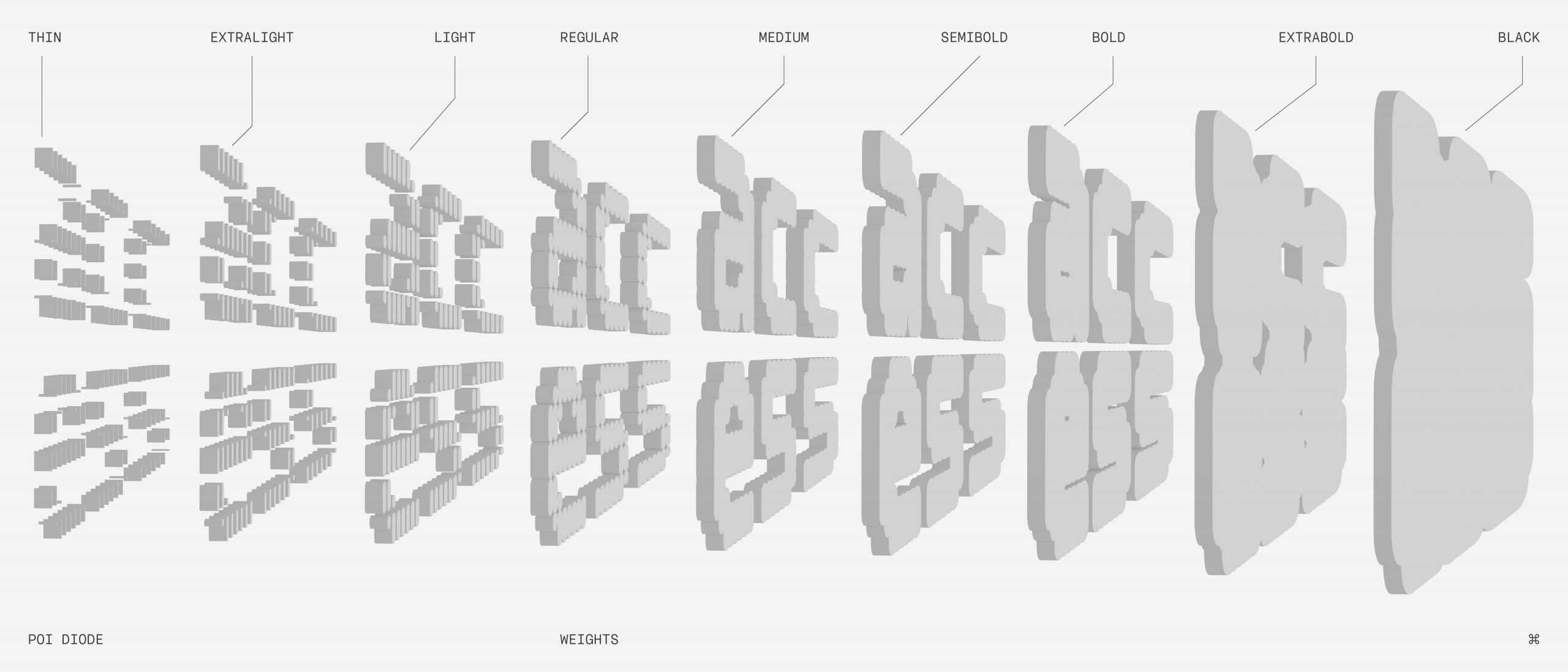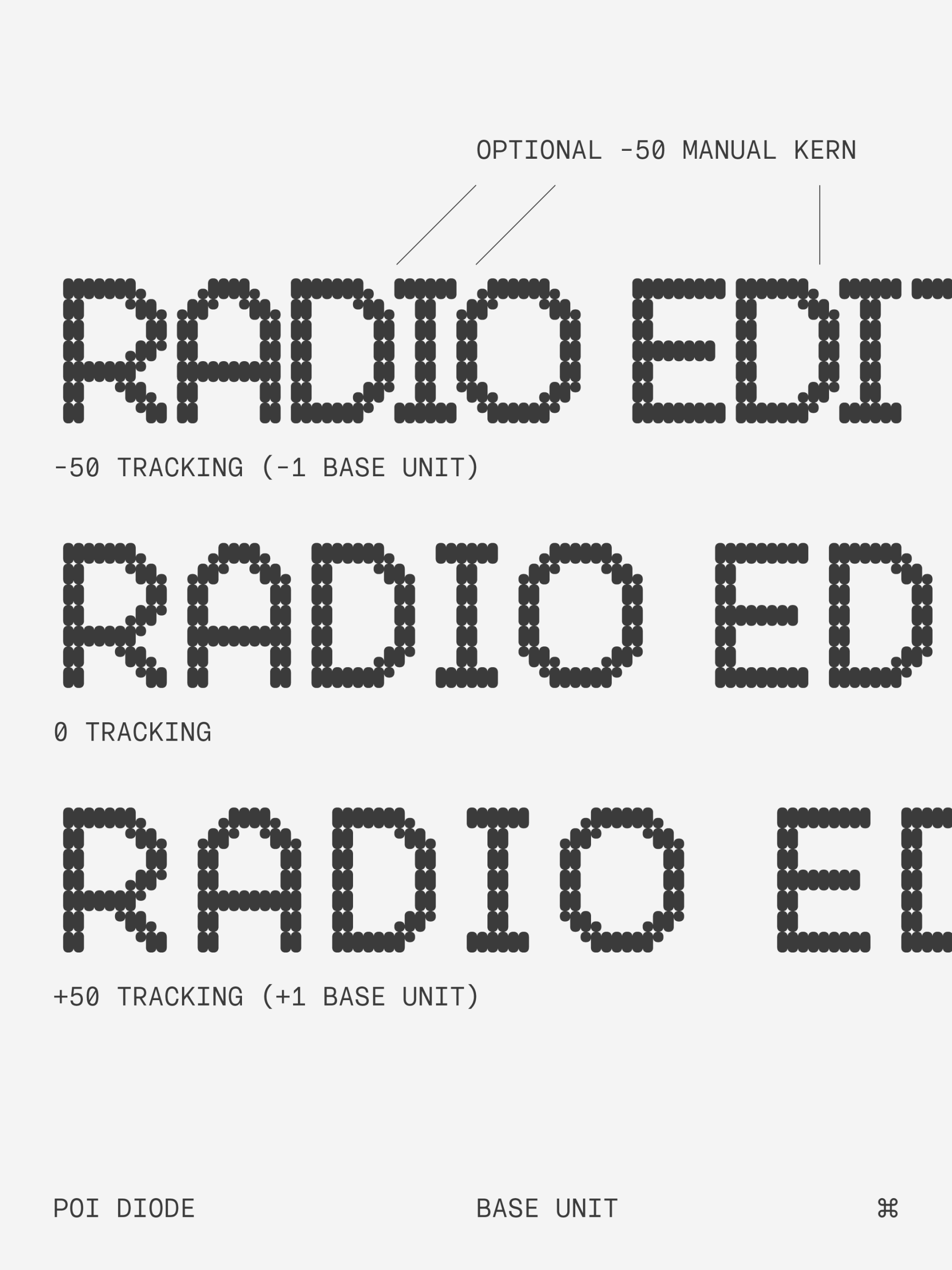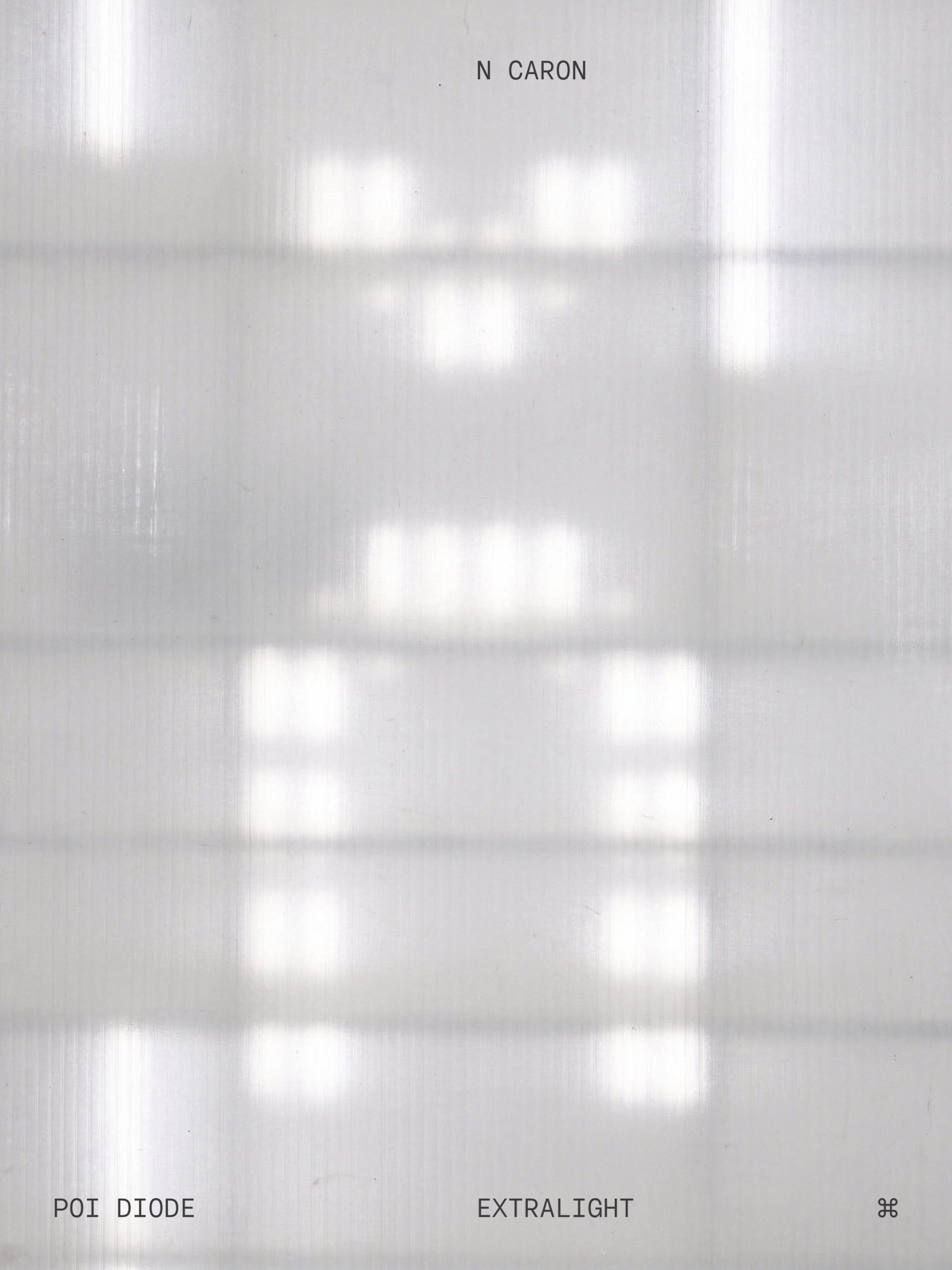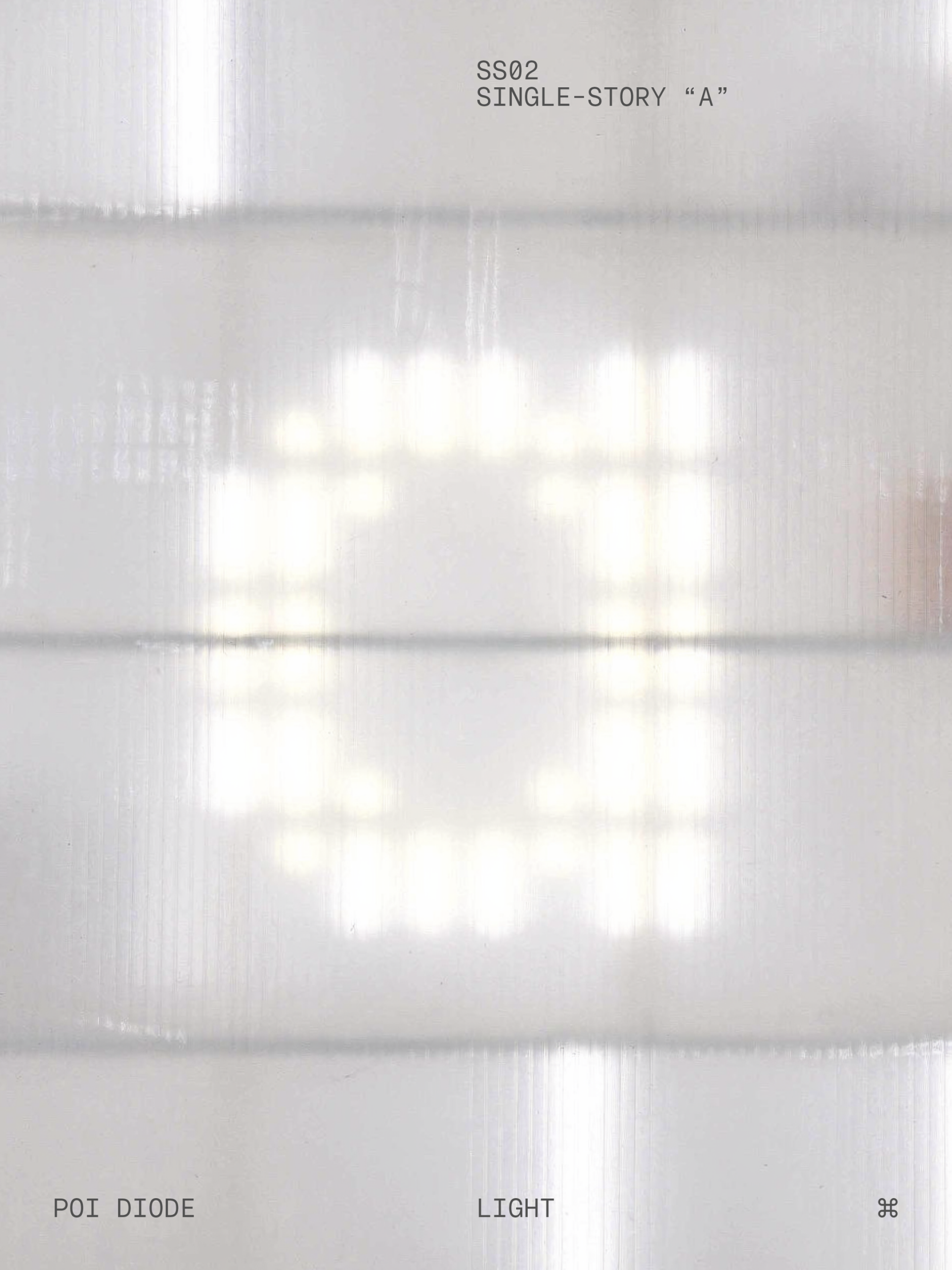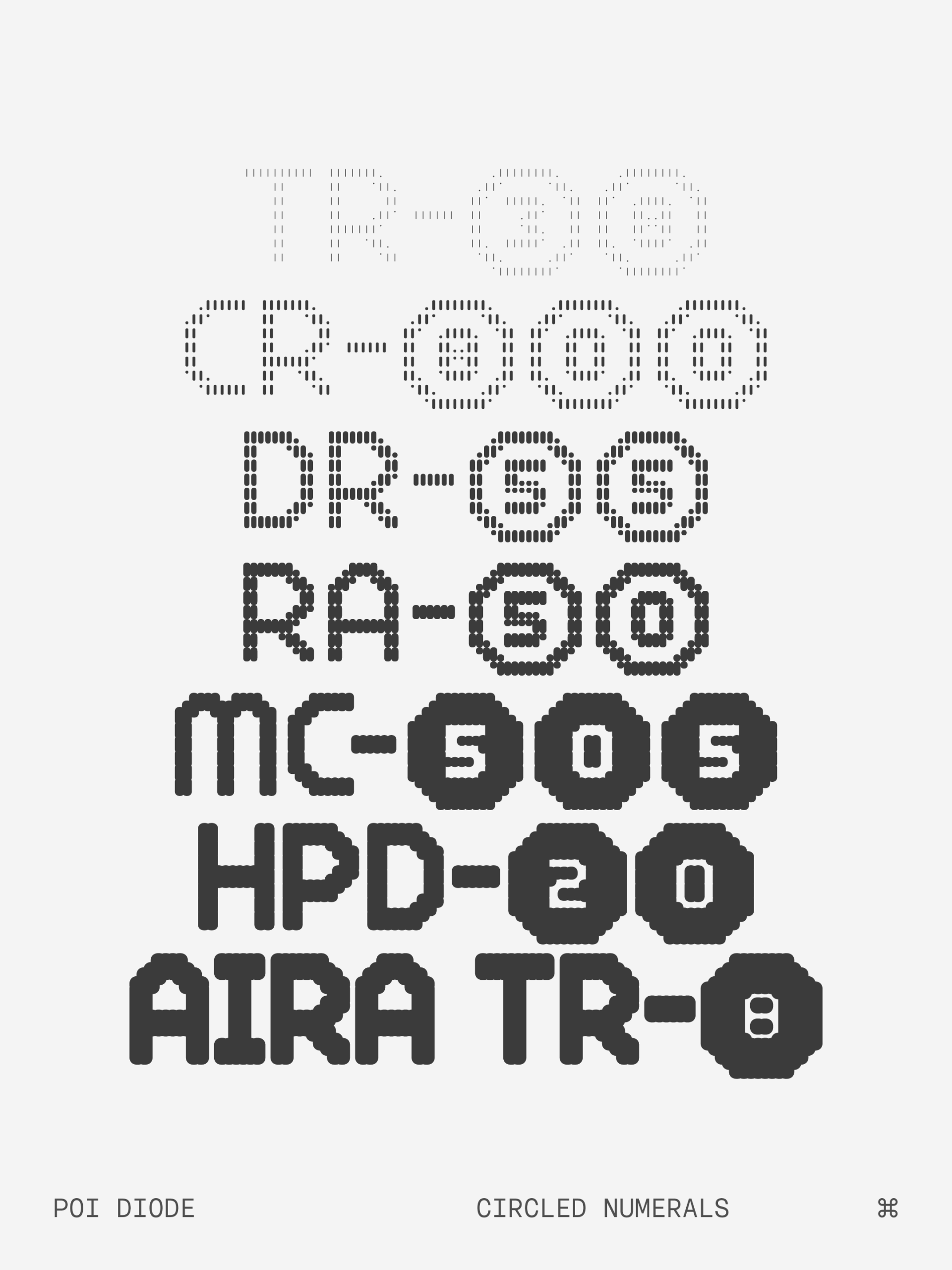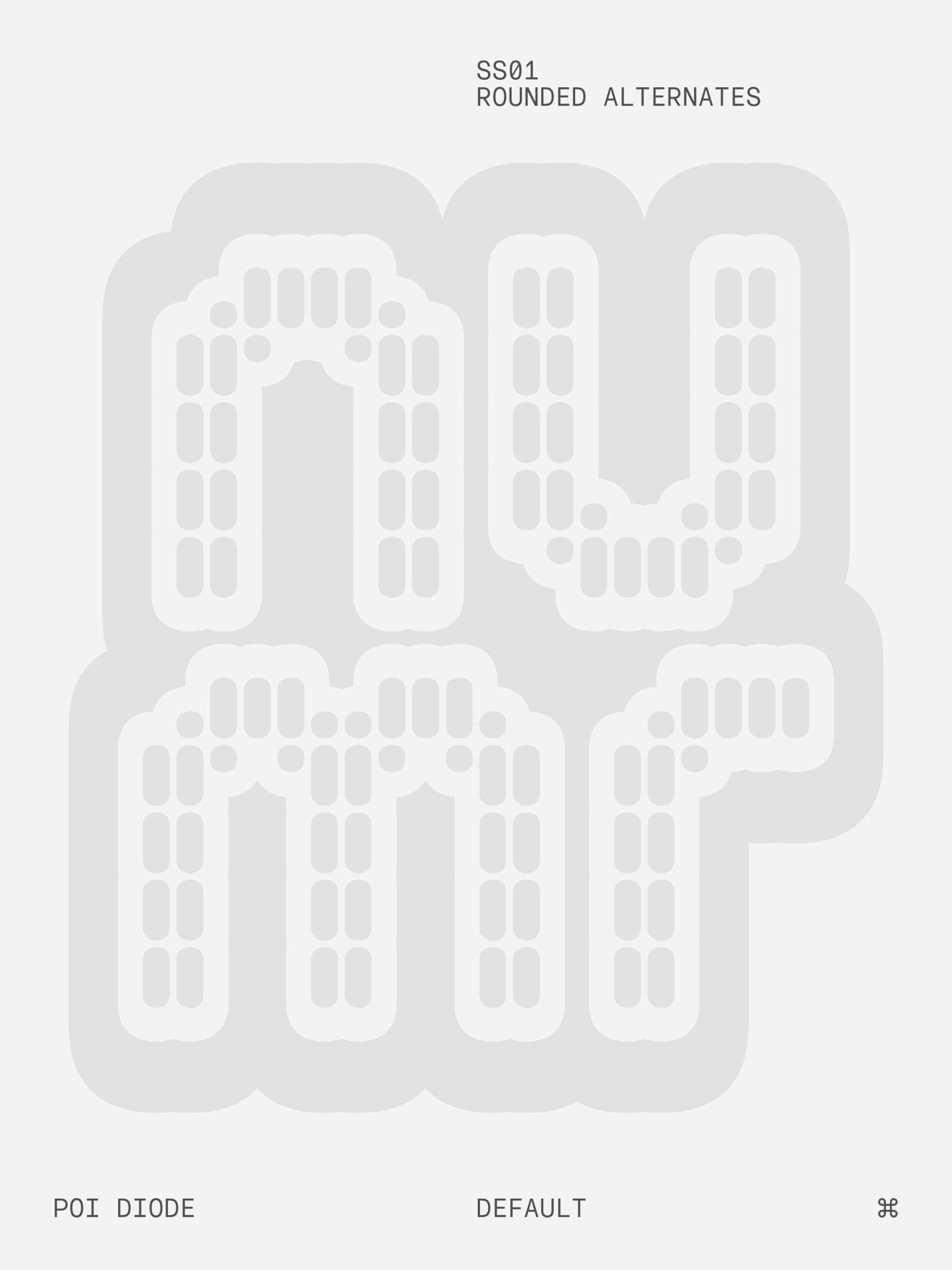
POI Diode is display typeface inspired by low-resolution pixel fonts. It is constructed of two pixel designs—anode and cathode—to create a unique look that lives outside of conventional pixel fonts. Perfect for bold headlines or short pieces of copy. A variable font is included on all purchases of the full family.